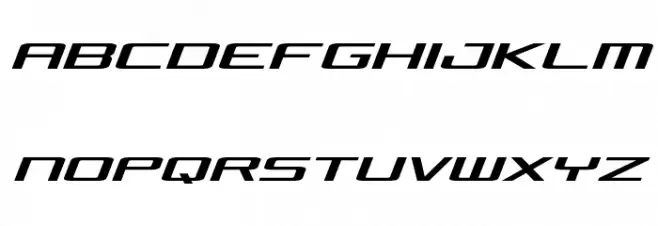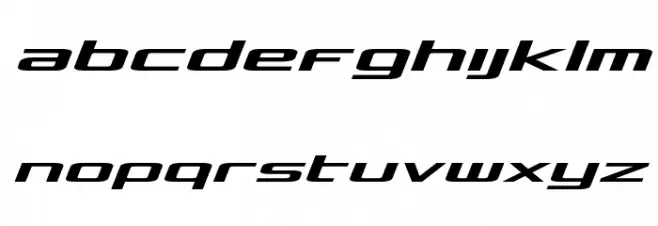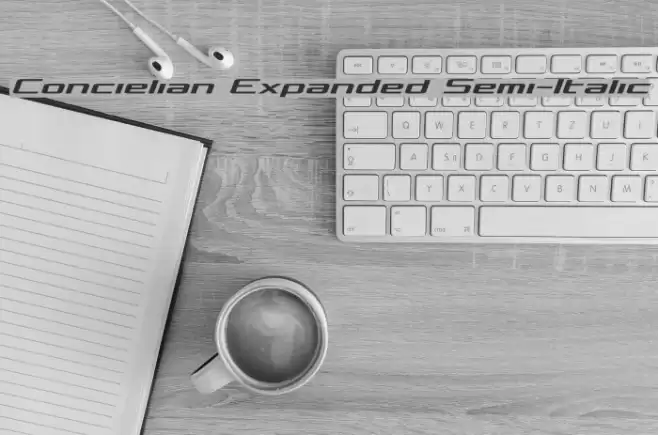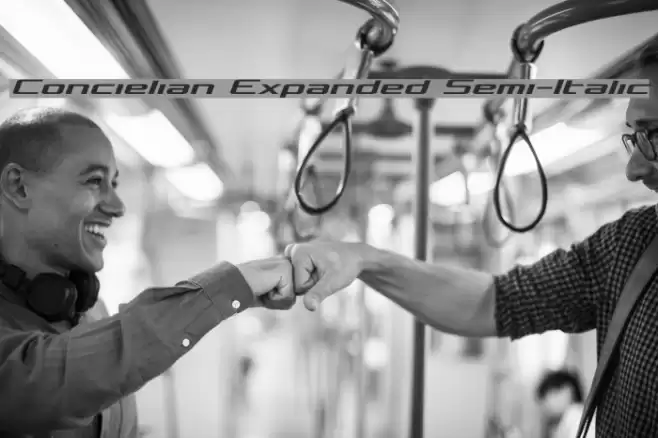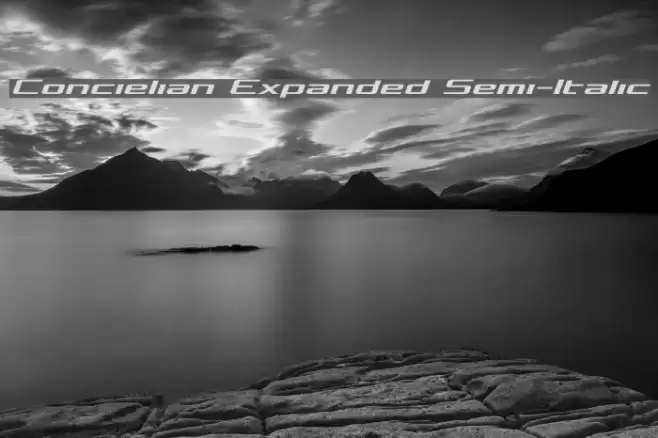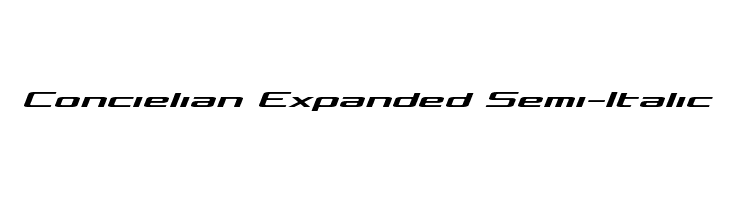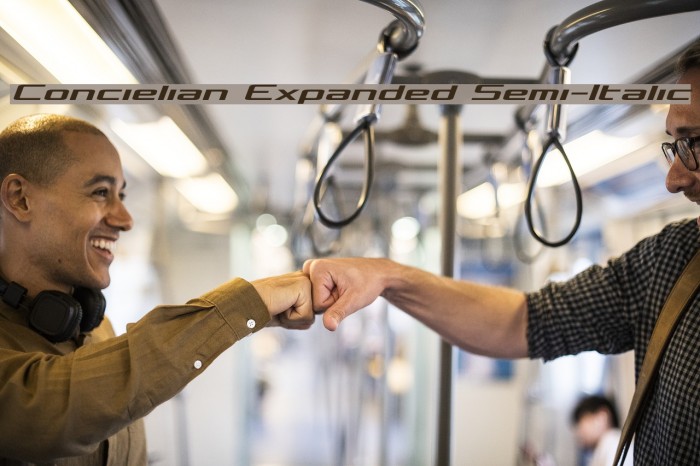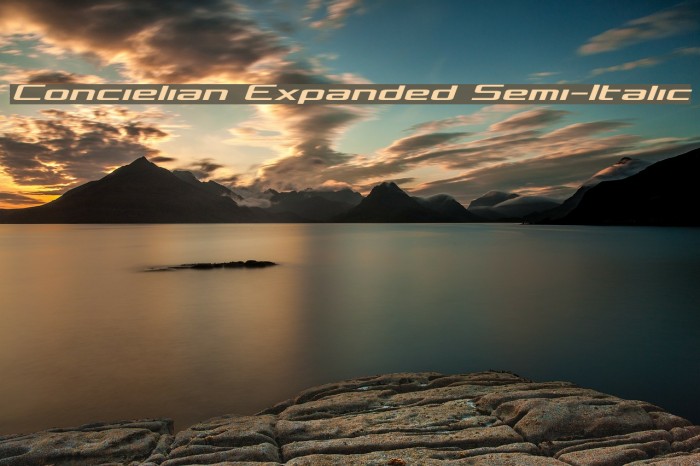
Concielian Expanded Semi-Italic
This font features a modern, sleek design with an expanded width and semi-italic style. The characters are slightly slanted, giving a dynamic and forward-moving appearance. The strokes are consistent in thickness, providing a uniform look across all characters. The uppercase and lowercase letters maintain a cohesive style, with rounded edges and smooth curves that enhance readability. The numerals and special characters follow the same design principles, ensuring a harmonious overall appearance. This font is well-suited for projects that require a contemporary and stylish touch.
A modern, expanded, semi-italic font with consistent stroke thickness and smooth curves.
- Proposed Projects: Ideal for branding, advertising, and digital media projects that require a modern and stylish aesthetic.
- Width: Expanded
- Use Case: Headlines, Logos, Digital Media